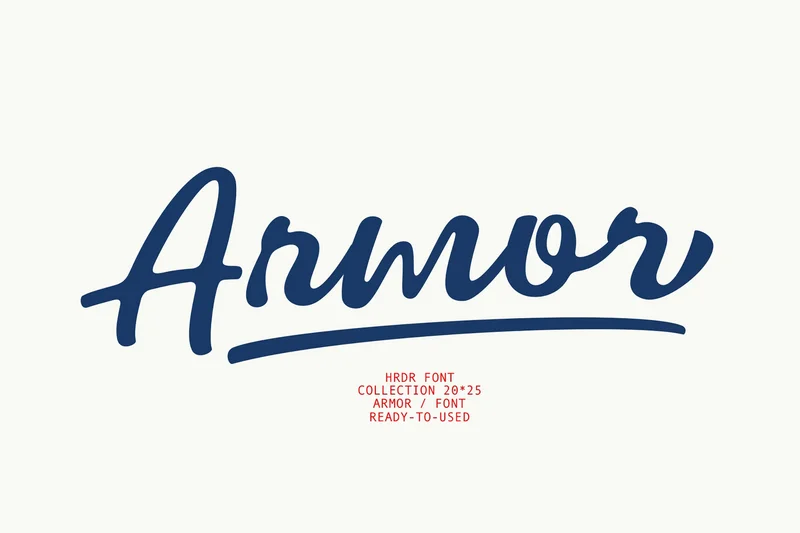
Armor – Elegant Script Font
Sign, bloggers, logos, greeting cards, Logo, Quotes and more.
numeric & Multilingual support
Stylistic Alternates with ( Ss01, Ss02, Ss03 )